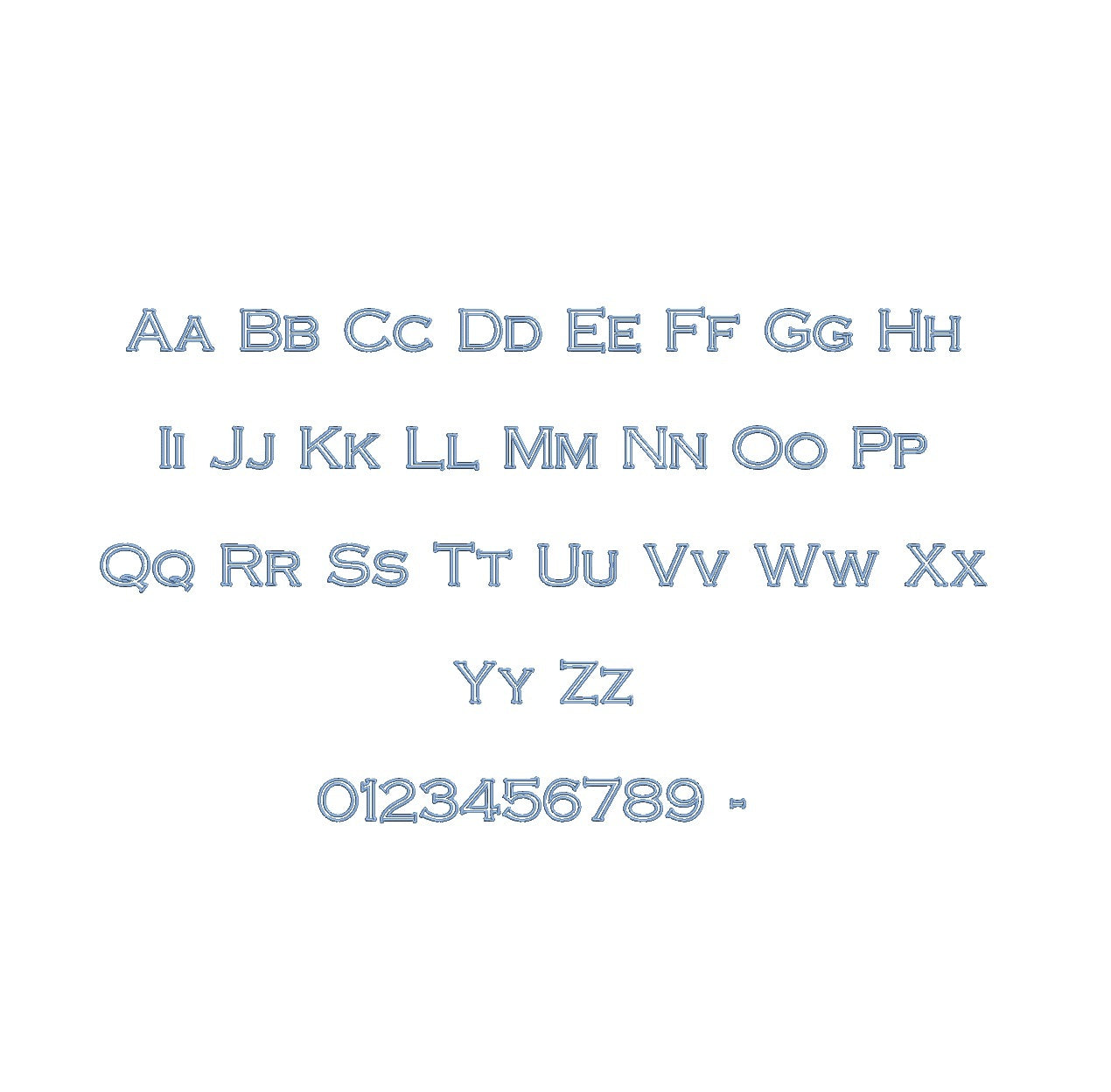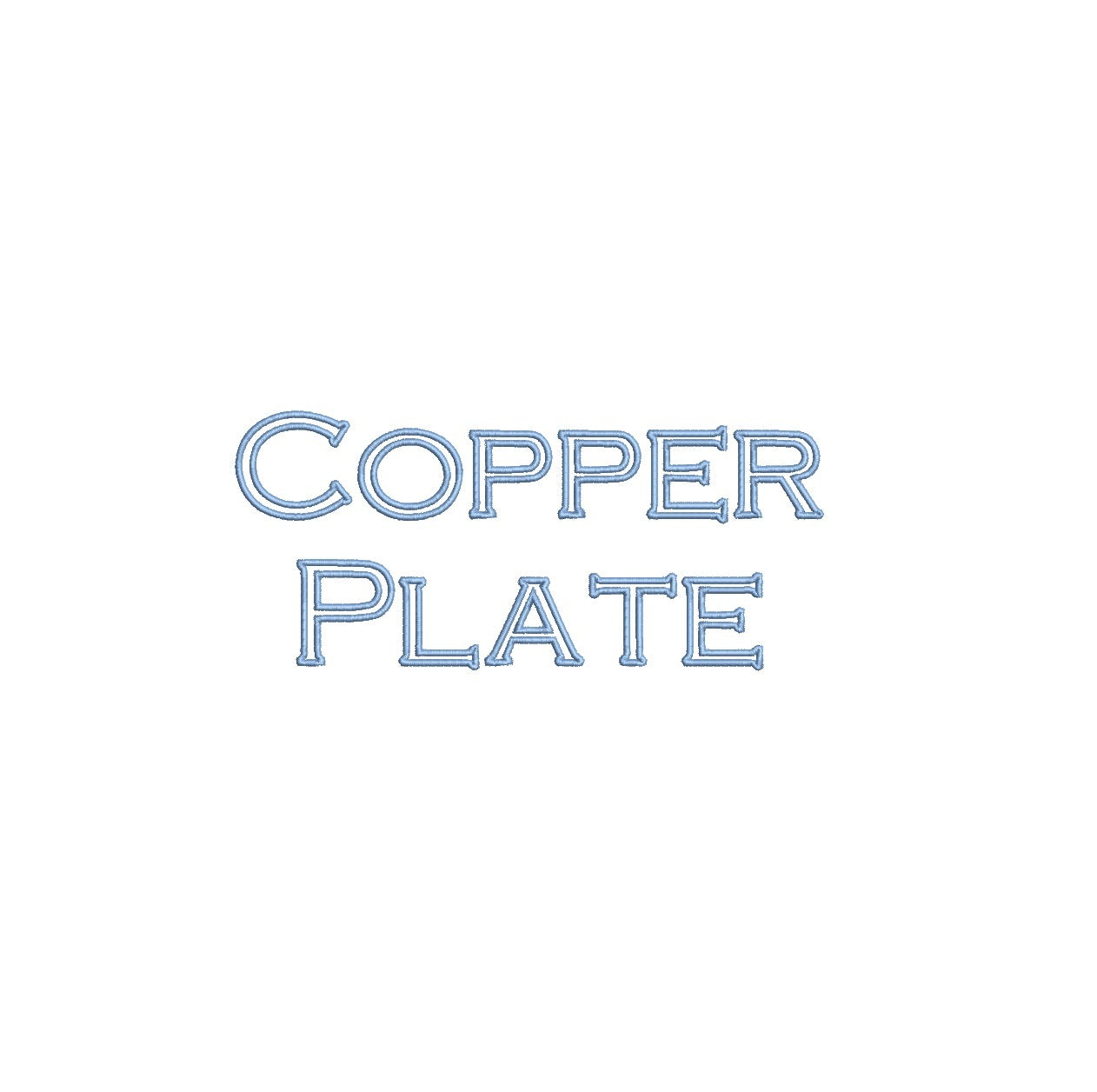
Copperplate Outline ESA font
Elevate your embroidery designs with the Copperplate Outline ESA font, now fully compatible with Wilcom Studio e4.5.6 and Hatch 3 versions and beyond. This classic yet versatile typeface adds a touch of sophistication to your projects. Its clean, precise outlines make it perfect for monograms, elegant logos, and timeless lettering. Seamless integration into your preferred embroidery software ensures effortless editing and impeccable results. With Copperplate Outline ESA font, your designs will exude timeless charm and professionalism. Enhance your digitizing capabilities and create embroidery that stands the test of time. Elevate your craft with this essential tool in your toolkit.